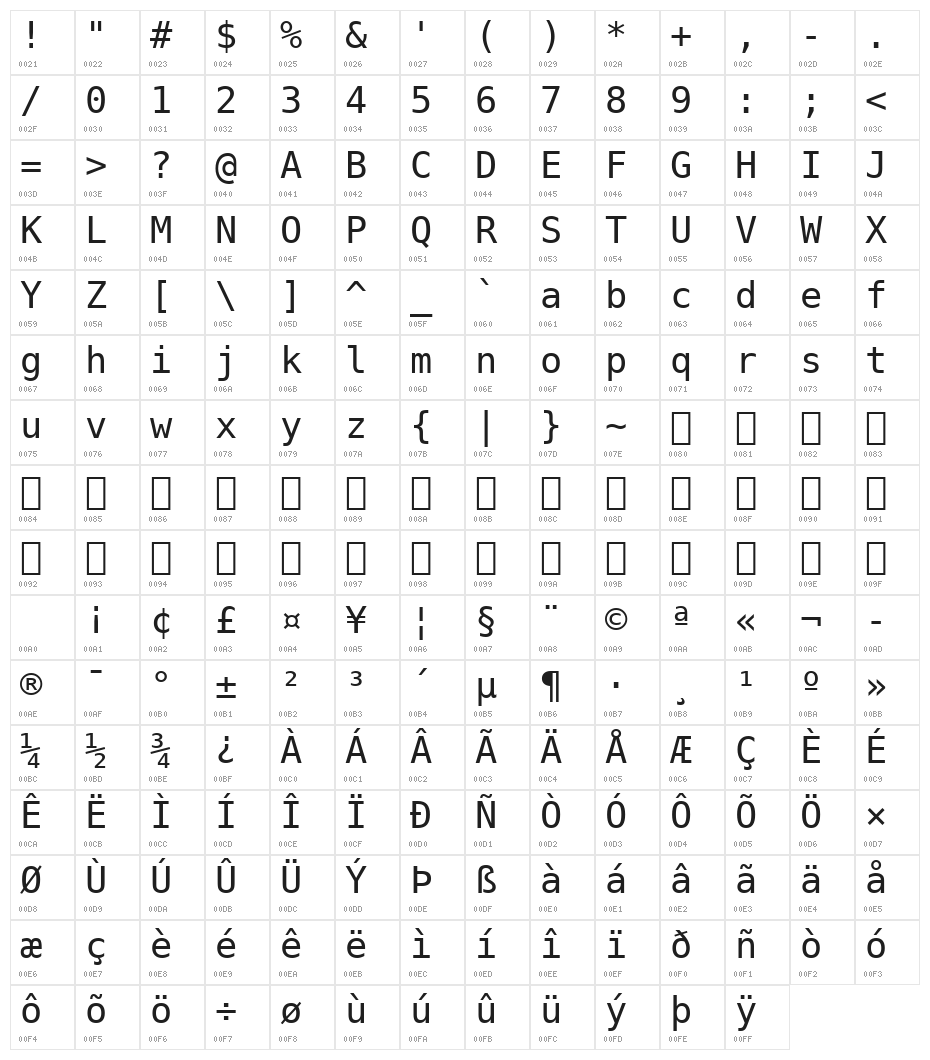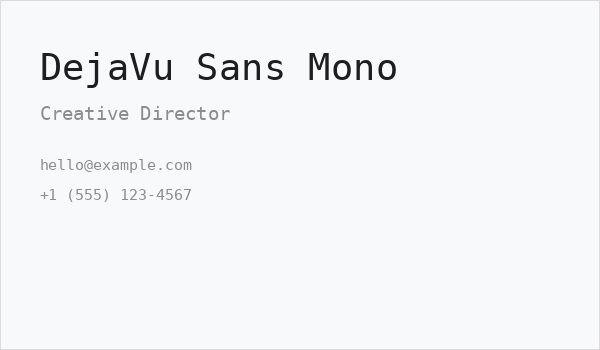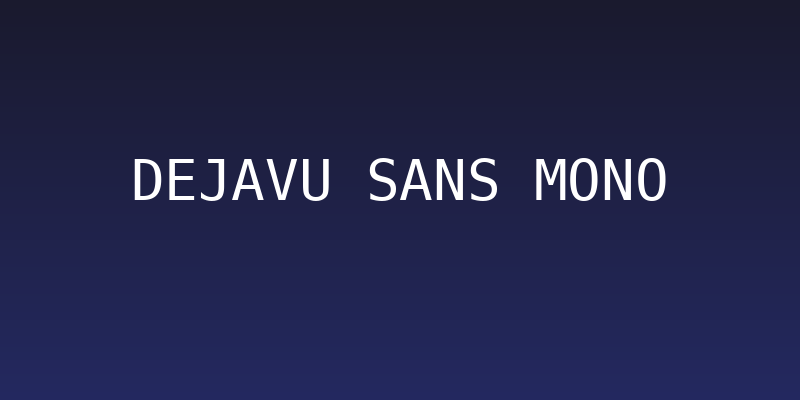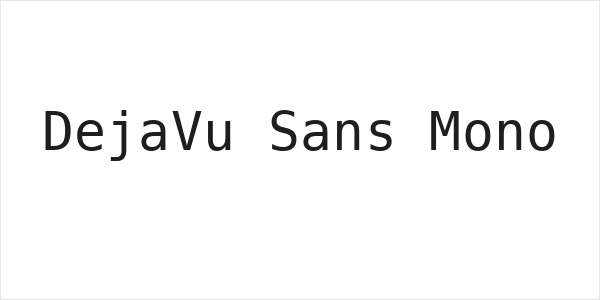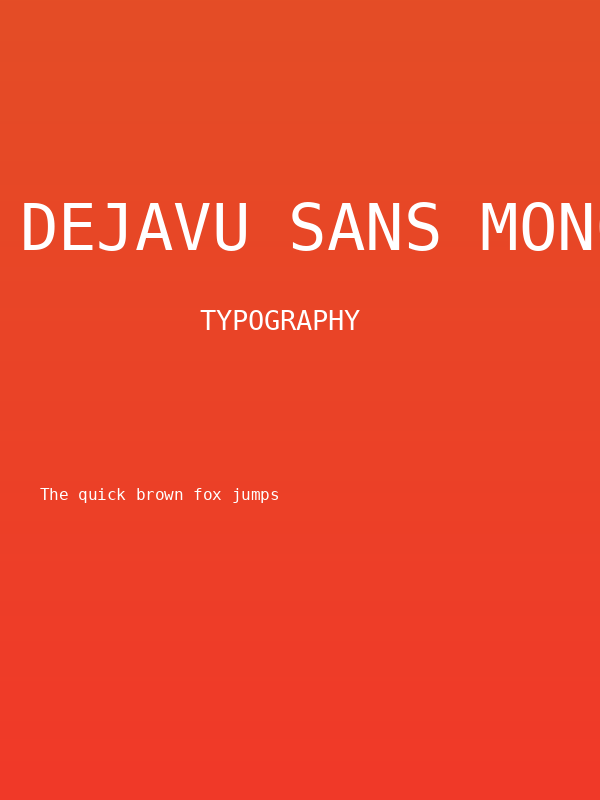
DejaVu Sans Mono Font
DejaVu Sans Mono Description
This typeface is a monospaced font characterized by its uniform spacing and clean, straightforward design. Each character occupies the same amount of horizontal space, making it ideal for coding and tabular data. The design is sans-serif, providing a modern and uncluttered appearance. The strokes are consistent in width, contributing to a low contrast between thick and thin lines. The overall style is utilitarian and functional, with a focus on readability and clarity. The font includes a full set of uppercase and lowercase letters, numerals, and a variety of special characters, ensuring versatility for various applications.
| Use Case | Coding, Technical documentation, Data tables |
| Proposed Projects | Perfect for coding environments, technical documentation, and data tables. |